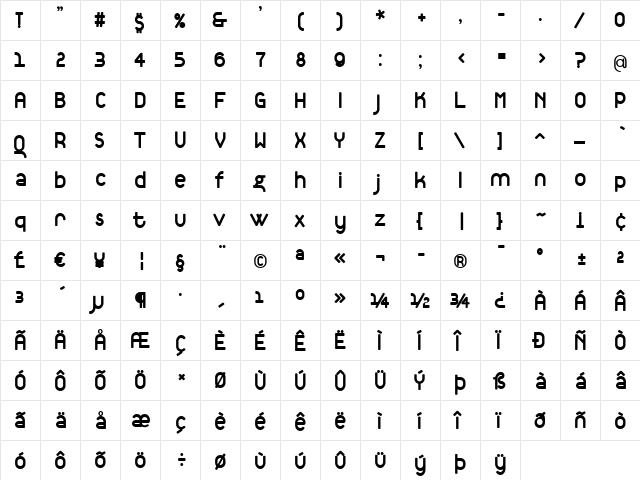
TantalusBold Regular
Design Context for TantalusBold Typeface
TantalusBold offers clean, dependable letterforms without strong stylistic allegiance, making it a practical choice for designers who need flexibility. The heavy weight commands attention and anchors typographic hierarchies.